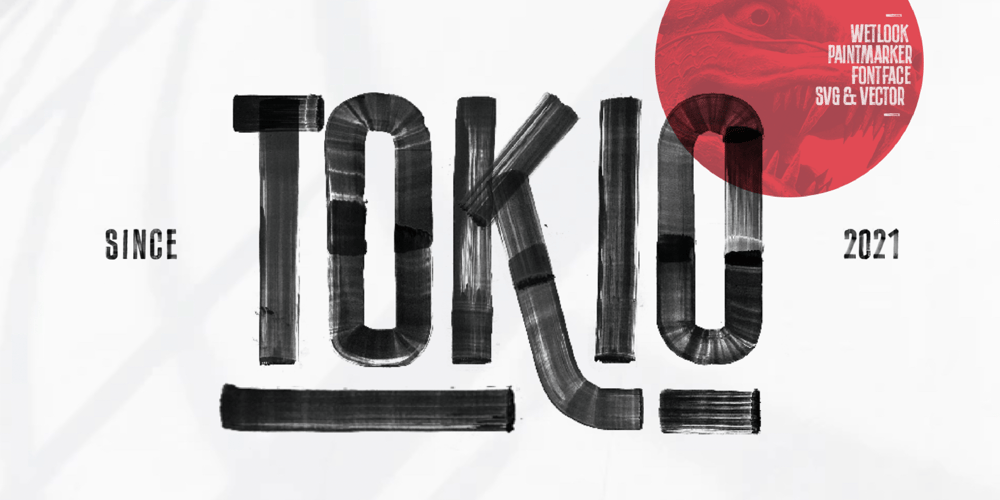
Tokio Marker
Tokio Marker font
Tokio Marker Font Family was designed by Christoph Zeugswetter and published by XTOPH. Tokio Marker contains 1 styles and family package options. This font is handpainted with a paintmarker on a glossy surface. Its available in a vector and a svg version. If the svg version is not available on this plattform, please contact me via my website: www.x-toph.comThe lowercase letters are uppercase alternate glyphs.